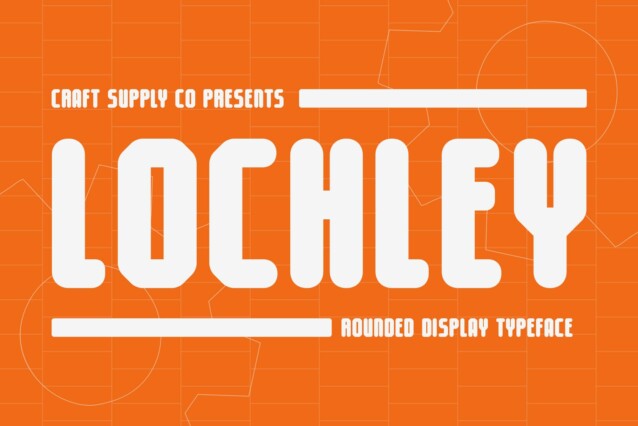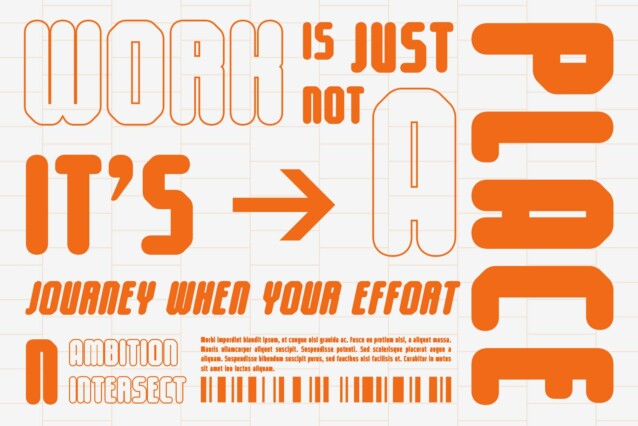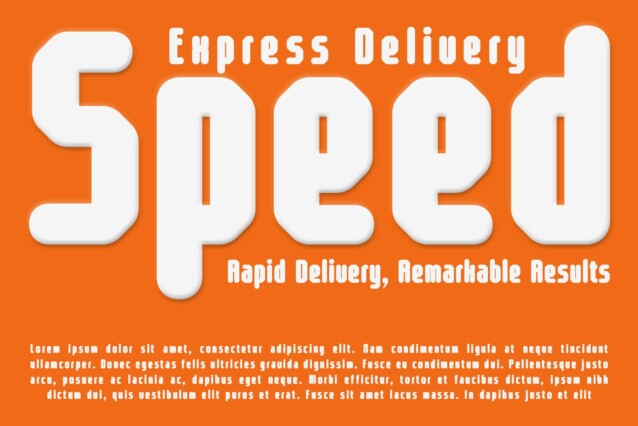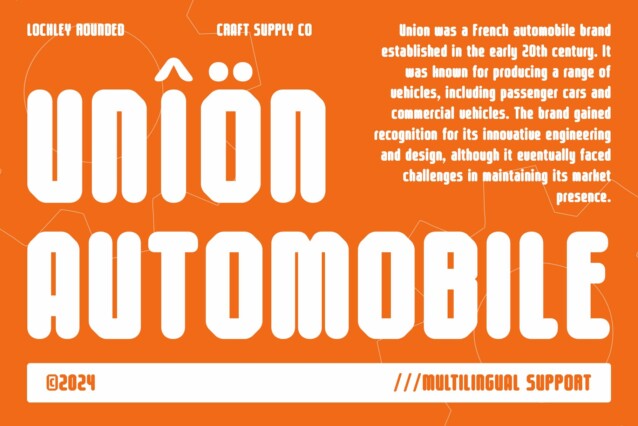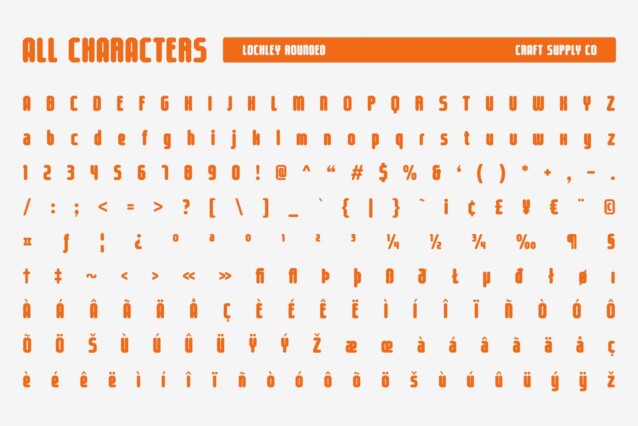
Lochley Rounded Font
Lochley Rounded Font is a modern sans-serif font that blends boldness, compactness, and sleek, contemporary design. Its condensed form provides a solid and efficient structure, making it ideal for tight spaces without compromising readability. The bold letters enhance its strong visual presence, while the rounded edges soften the overall aesthetic, introducing a friendly and futuristic feel. This balance between strength and softness creates a unique visual identity that is both approachable and cutting-edge.